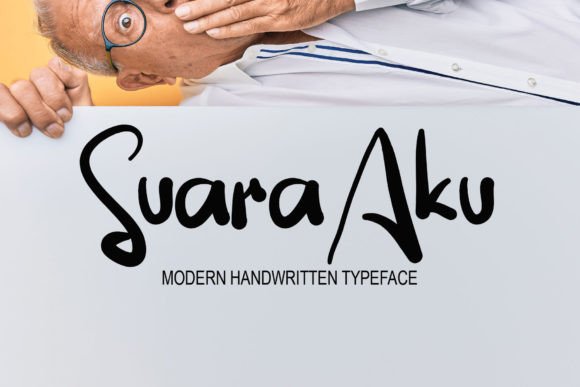
Embrace the beauty of handcrafted elegance with Suara Aku, a script font that captures the essence of handwritten artistry. Every stroke, every curve, every twist and turn of this font exudes a personal touch, evoking a sense of intimacy and connection.
Suara Aku is not just another font; it's an invitation to express your individuality, to let your words flow with the grace and charm of handwritten letters. Picture your wedding invitations adorned with Suara Aku's delicate strokes, conveying the joy and anticipation of your special day. Envision your business cards, each one a mini masterpiece, leaving a lasting impression on potential clients. Unleash your creativity and design eye-catching advertisements that speak volumes, thanks to Suara Aku's captivating style.
Suara Aku shines in its simplicity, yet it commands attention with its stylish flair. Its understated elegance adds a touch of sophistication to any project, whether it's a personal journal, a heartfelt letter, or a professional presentation. Experience the joy of writing with Suara Aku, and let your words dance across the page with effortless grace.
With its versatility, Suara Aku seamlessly adapts to a myriad of applications. It enhances the allure of product packaging, making your products stand out on shelves. It transforms social media posts into captivating expressions of your brand's personality. And when used in logos and branding, Suara Aku creates a lasting connection with your audience, leaving an indelible mark on their minds.
Indulge in the beauty of Suara Aku, a font that sparks creativity, ignites imagination, and leaves a lasting impression. Download Suara Aku today and unlock a world of endless possibilities, where your words take on a life of their own.